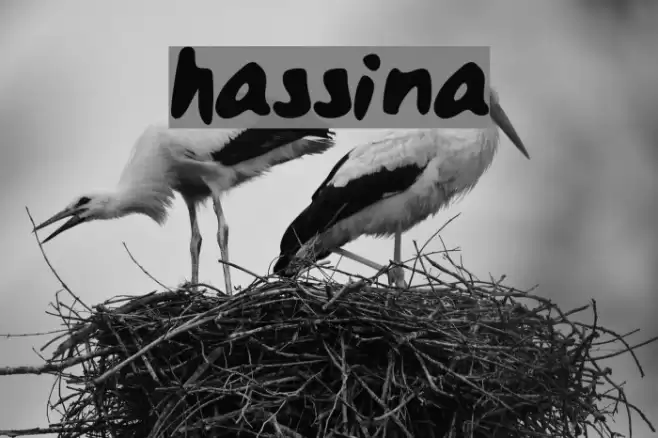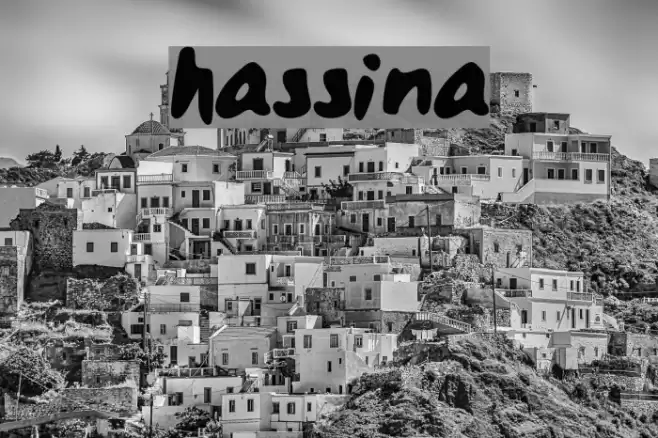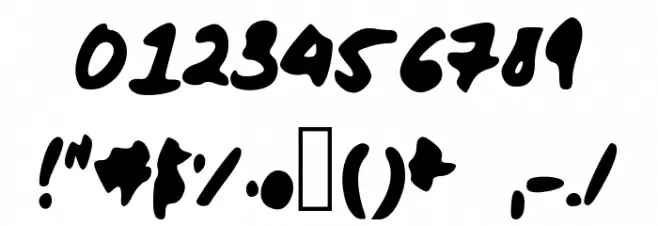
hassina Font
hassina Description
This playful and bold font features a handwritten style with a lively and energetic appearance. The characters are rounded and slightly irregular, giving them a casual and informal feel. The strokes are thick and consistent, contributing to a strong visual presence. The font maintains a cohesive look across both uppercase and lowercase letters, as well as numbers and special characters. Its unique style makes it stand out, while still being legible and versatile for various design needs.
A bold, playful handwritten font with thick, rounded strokes from Handwritten fonts.
- Proposed Projects: Ideal for children's books, playful branding, greeting cards, and informal posters.
- Overall Style: Playful